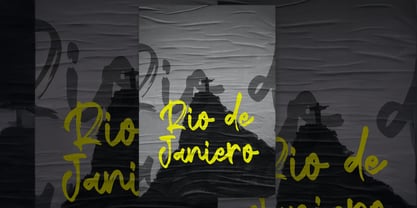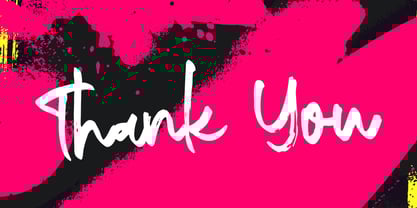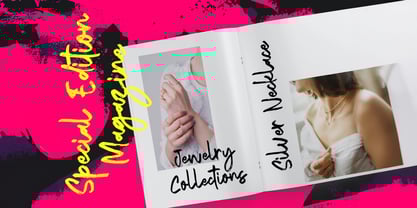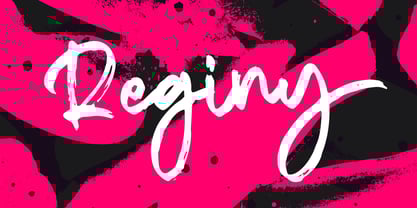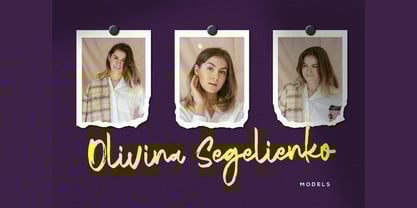
The Reginy Font Family was designed by Virgiawan Listanto and published by Stringlabs Creative Studio. Reginy contains 1 styles.
Reginy is a striking textured brush font that combines raw energy with artistic flair. With its handcrafted strokes and rugged texture, Reginy adds a bold, dynamic feel to any design perfect for creatives who want to make a statement. From edgy branding to poster titles, this font delivers impact with a natural brush style that feels powerful and personal.
Designers: Virgiawan Listanto
Publisher: Stringlabs Creative Studio
Foundry: Stringlabs Creative Studio
Design Owner: Stringlabs Creative Studio
Reginy